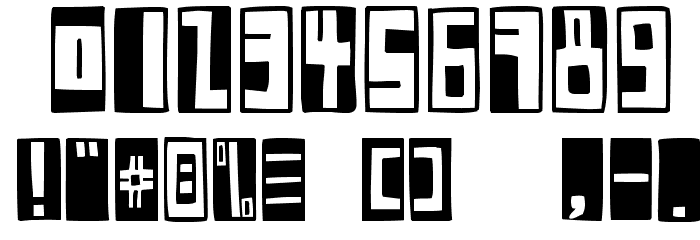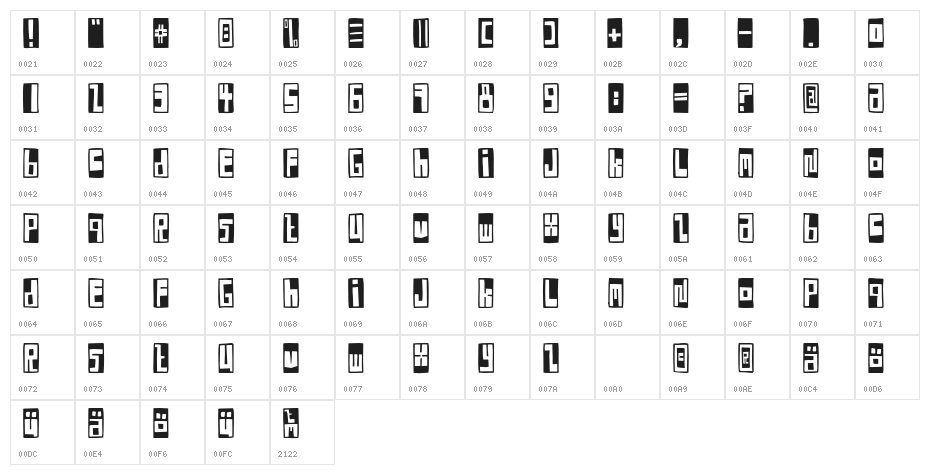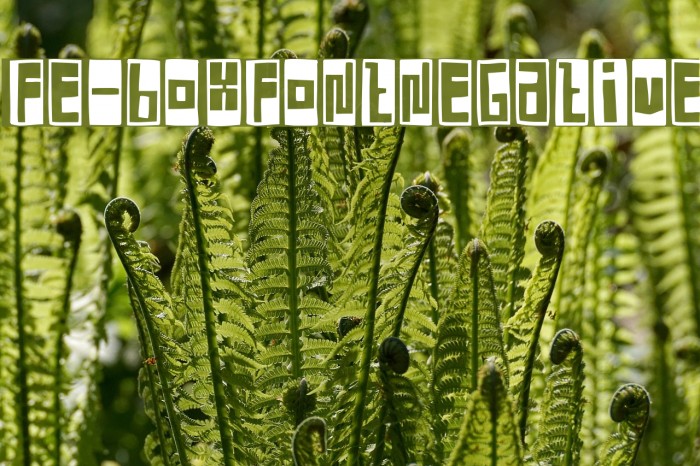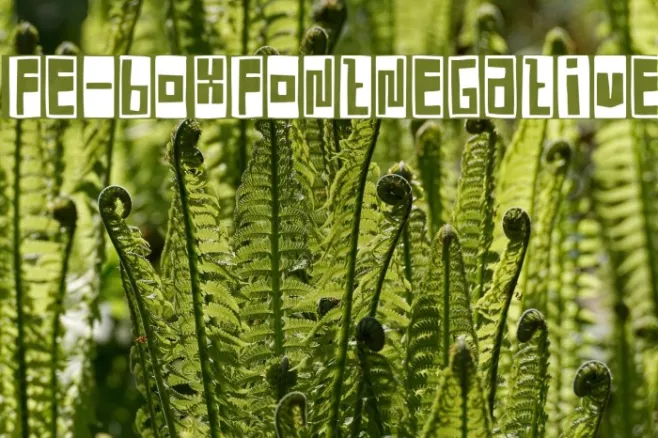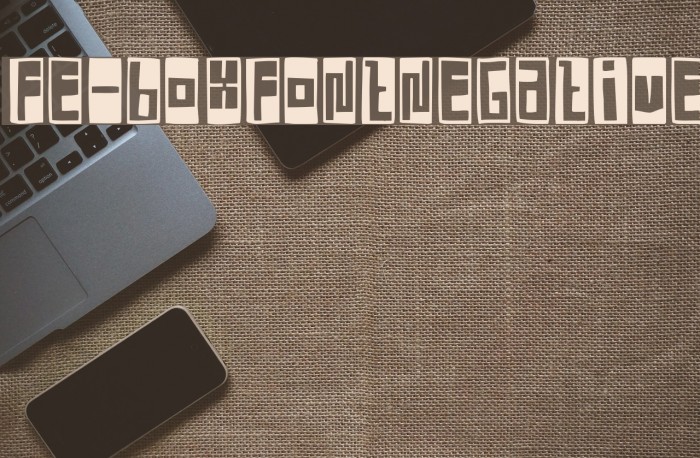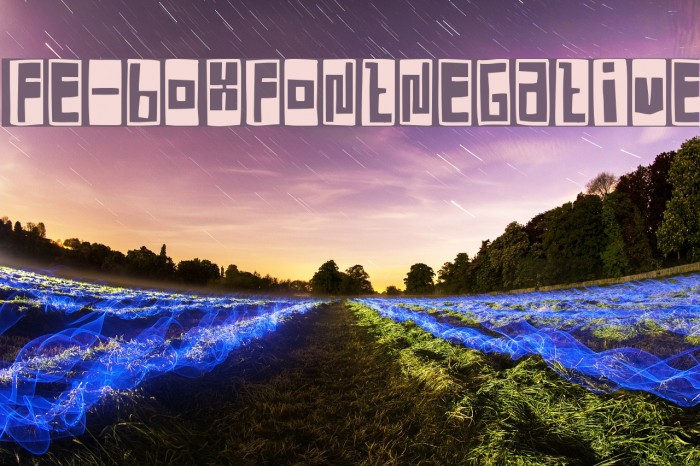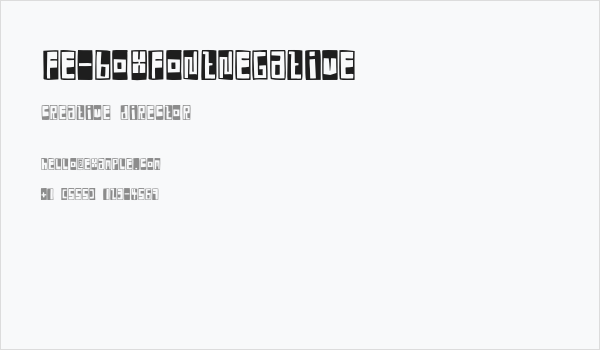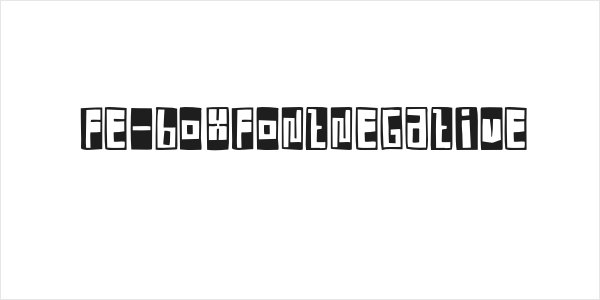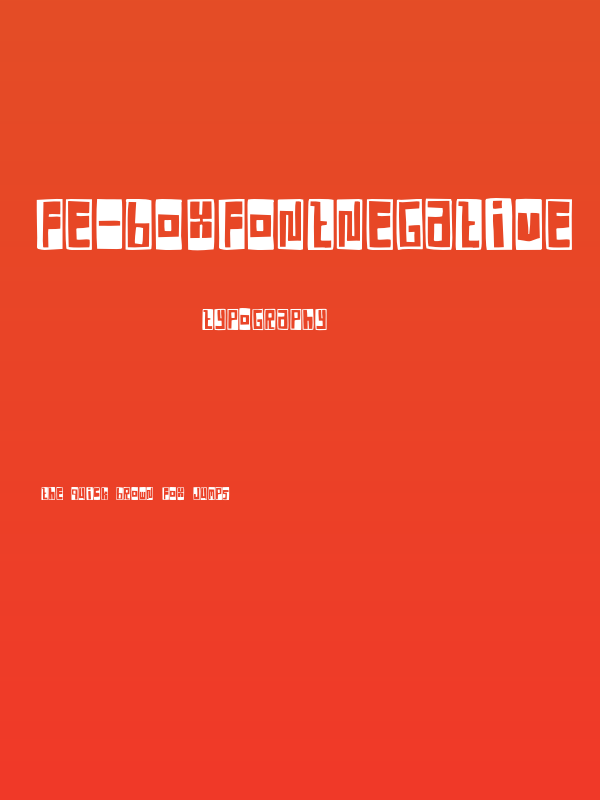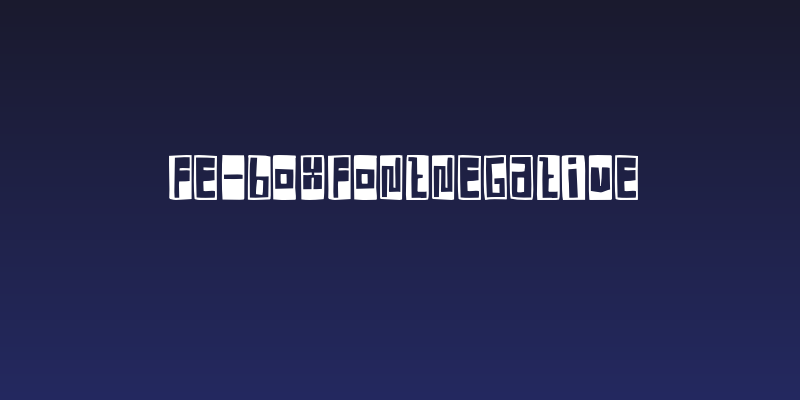
FE-BoxFontNegative Font
FE-BoxFontNegative Description
This font features a bold, blocky design with each character enclosed in a rectangular box. The letters are stylized with a playful, almost cartoonish appearance, where the negative space forms the character shapes. The uppercase and lowercase letters share a similar style, maintaining consistency across the alphabet. Numbers and special characters are also included, each fitting within the same boxy structure. The overall look is striking and attention-grabbing, making it suitable for designs that require a strong visual impact.
| Proposed Projects | Ideal for posters, logos, and any design project that requires a bold, eye-catching typeface. |